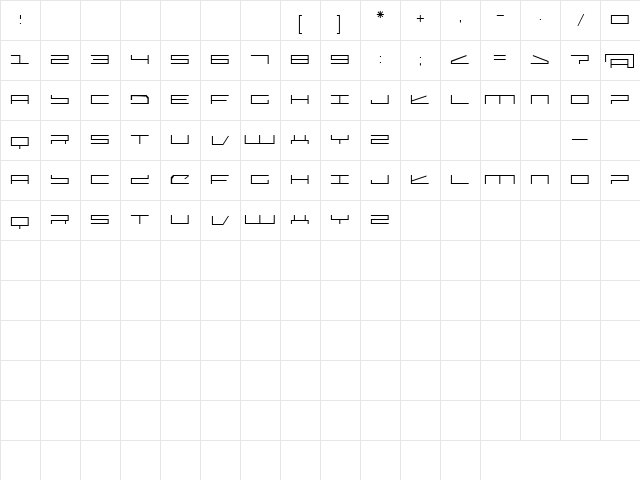
399 Missile Thin
Design Context for 399 Missile Typeface
399 Missile is a composed and adaptable typeface that performs quietly and consistently across a wide range of design contexts. Its slender proportions lend an understated elegance to any composition.